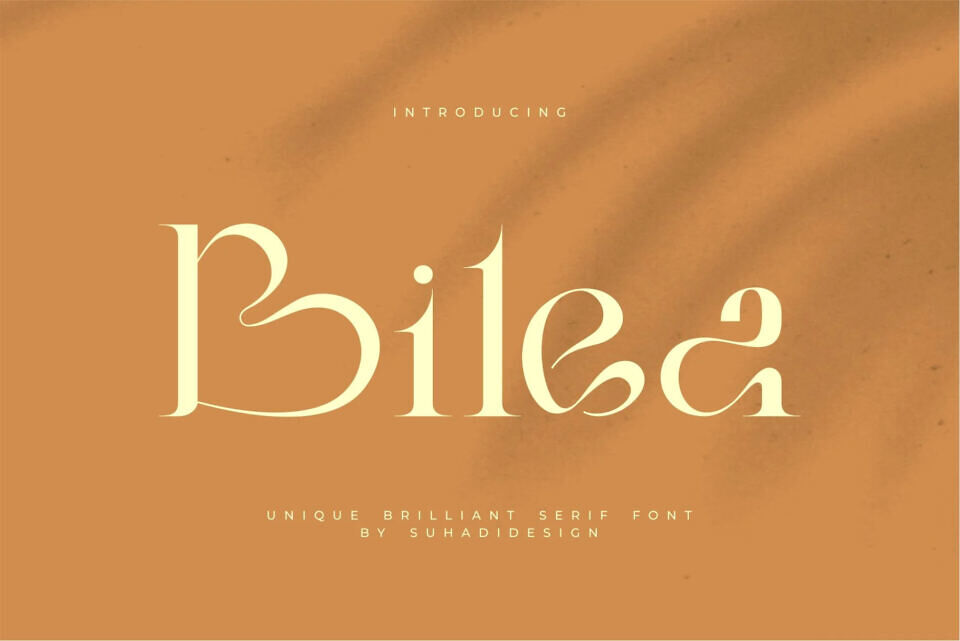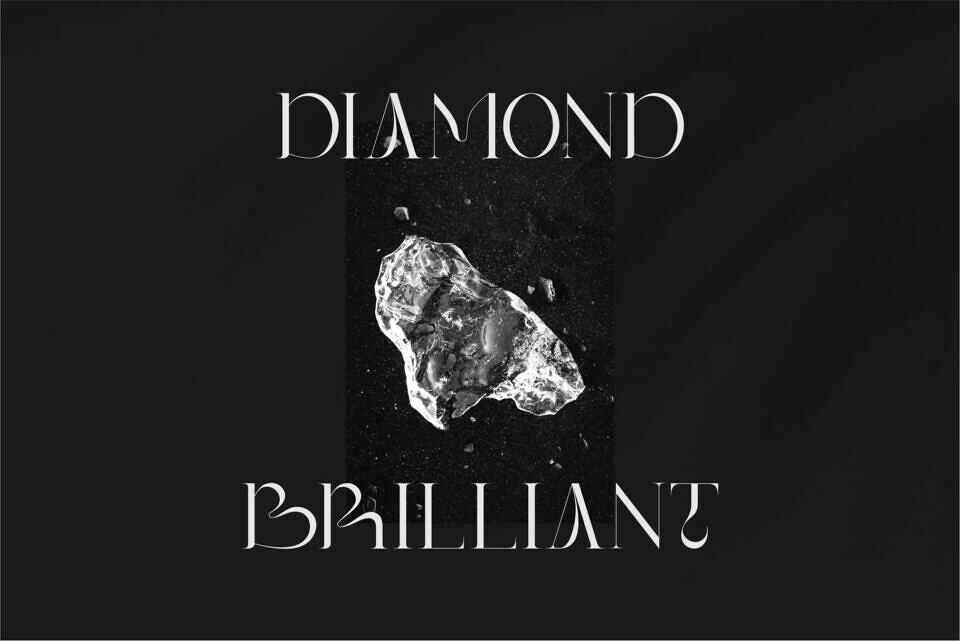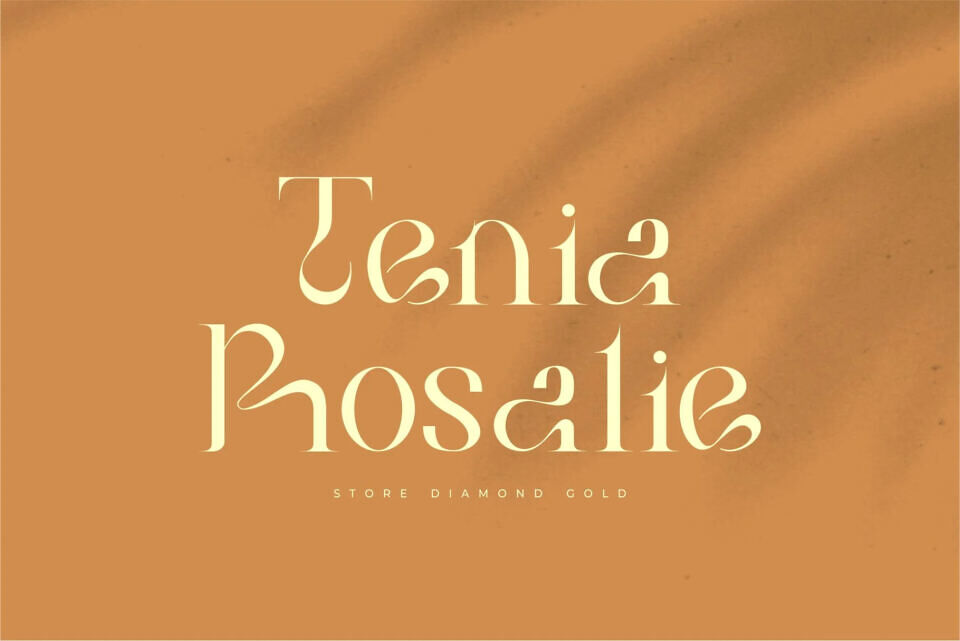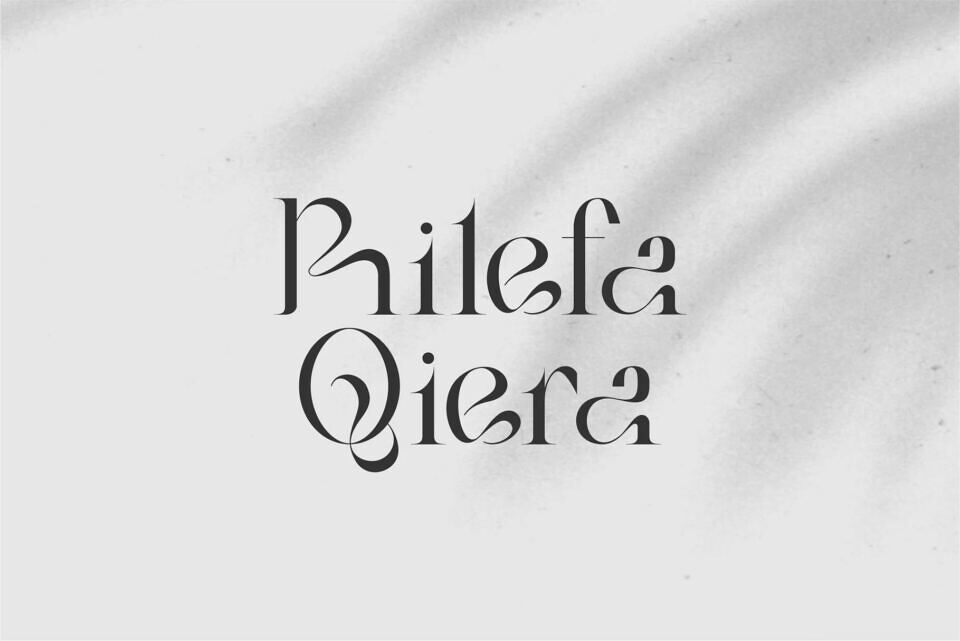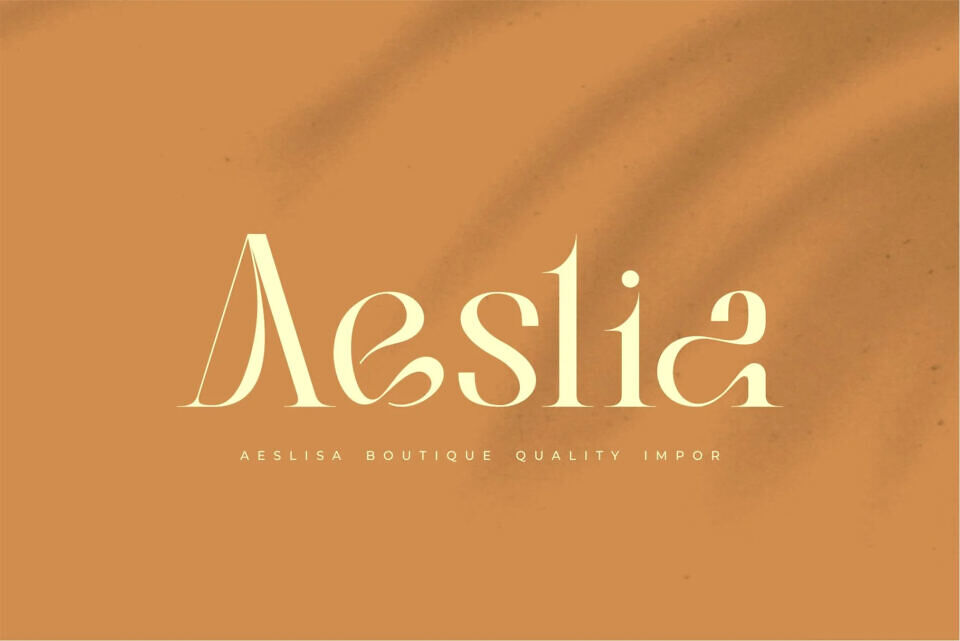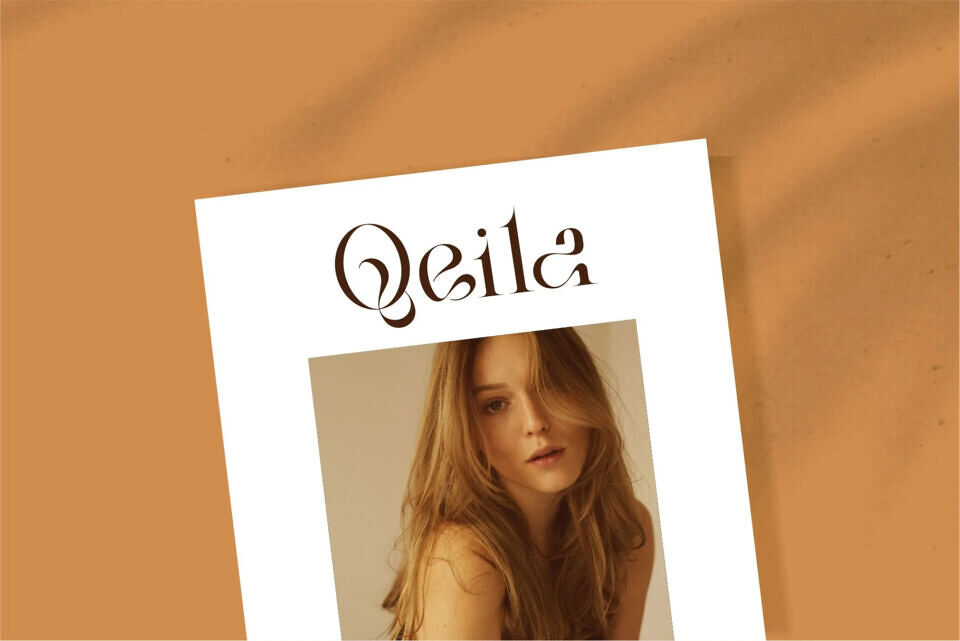
Bilea Font
Bilea is a unique and elegant serif font. With its elegant and unique, contemporary design, this font has become a favorite on the market. We maintain this font’s elegant, classy, ​​and stylish look.
Bilea is the perfect choice for magazines, designs, books, publications, branding, brand names, business cards, social media, classy designs, newspapers, branding, beauty, and other projects. Bilea is here to elevate the quality of your designs.